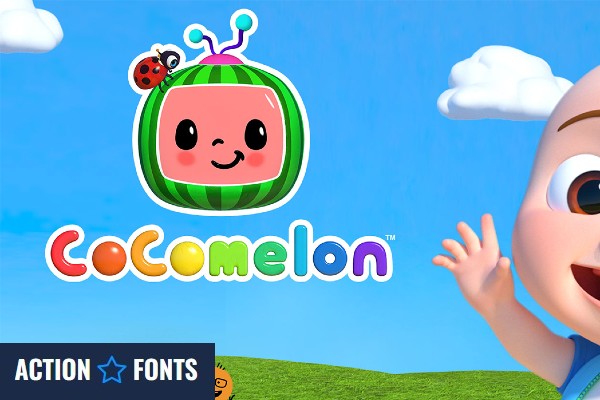
Cocomelon is a popular children’s educational media brand that began in 2006. It follows JJ and his family as they learn through songs, stories, and everyday activities. The main characters for this fun kids show include JJ, YoYo, TomTom, and their parents.
The rounded lettering used in the Cocomelon logo is similar in style to a typeface called Bubble Bobble. You can use this typeface to create your own Cocomelon inspired designs. It's a freeware font, so check it out below and download your own free copy.
The lettering itself is seen as having a bright, friendly, and playful appearance with thick rounded shapes. Its colorful design and soft curves create a cheerful style that is easy for young children to recognize.